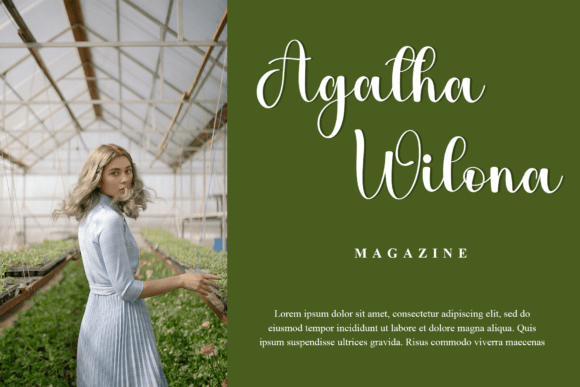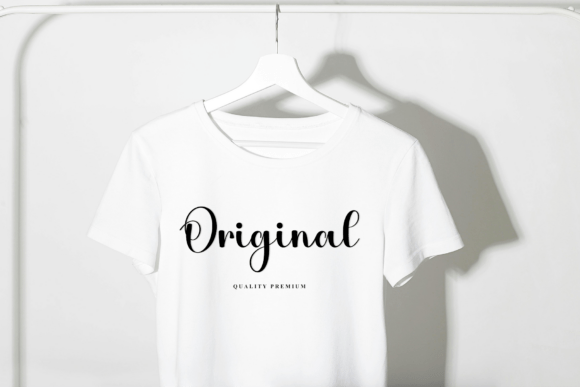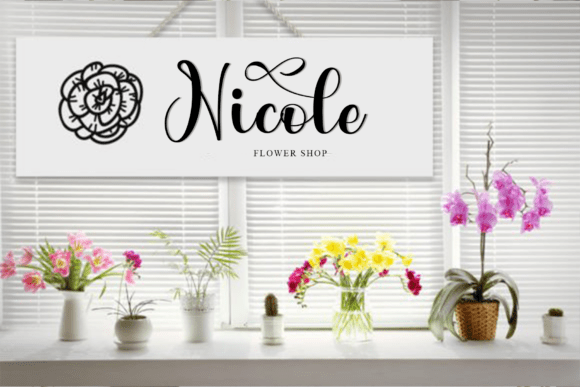
Introduction to Momsky Handmade Font
Have you ever been working on a design project and felt like something’s missing – a spark of personality that sets it apart from the rest? That’s where the Momsky Handmade Font comes in, adding a dash of warmth and friendliness to your creative endeavors.
As a designer, you know the importance of having high-quality design resources at your fingertips. The Momsky Handmade Font is a valuable addition to any design arsenal, offering a unique and charming aesthetic that’s perfect for personal projects, invitations, and social media graphics.
With its playful, hand-drawn strokes and transparent background, this font is a game-changer for designers looking to add a touch of whimsy to their designs.
Key Features of Momsky Handmade Font
- High-quality, hand-drawn design resource perfect for creative projects
- Unique, whimsical style with a transparent background, ideal for overlaying on images or backgrounds
- Includes a range of characters, including uppercase and lowercase letters, numbers, and punctuation
- High-resolution design, suitable for use at large sizes or for high-quality printing
- Perfect for use in scrapbooking, card making, or other paper crafting projects
- Also suitable for digital design, including web design and social media graphics
Honest Review: Momsky Handmade Font
I recently stumbled upon the Momsky Handmade Font, and I must say it’s been a game-changer for my design projects. As a designer, I’m always on the lookout for unique and high-quality fonts that can elevate my creative work.
One of the things that stands out about the Momsky Handmade Font is its level of detail. The font has a transparent background, which makes it incredibly versatile and easy to use in various design contexts.
Here are some of the things that work well about the Momsky Handmade Font:
- ✨ Unique and creative style that adds a personal touch to designs
- ✨ High-quality design that looks great on a variety of backgrounds
- ✨ Transparent background makes it easy to use in different design contexts
- ⚠️ Some users may find the font’s unique style challenging to work with
Overall, I’m really impressed with the Momsky Handmade Font. It’s a great resource for designers looking to add a touch of personality to their creative projects. If you’re looking for a unique and high-quality font, I’d definitely recommend giving it a try.
Tips for Getting the Most Out of Momsky Handmade Font
Use the Momsky Handmade Font on a transparent background to create a unique and eye-catching design. Experiment with different font sizes and colors to add depth and visual interest to your project.
The Momsky Handmade Font is perfect for a variety of creative projects, including wedding invitations, branding materials, and social media graphics. Its high-quality design and transparent background make it an ideal choice for designers looking for a unique and professional font.